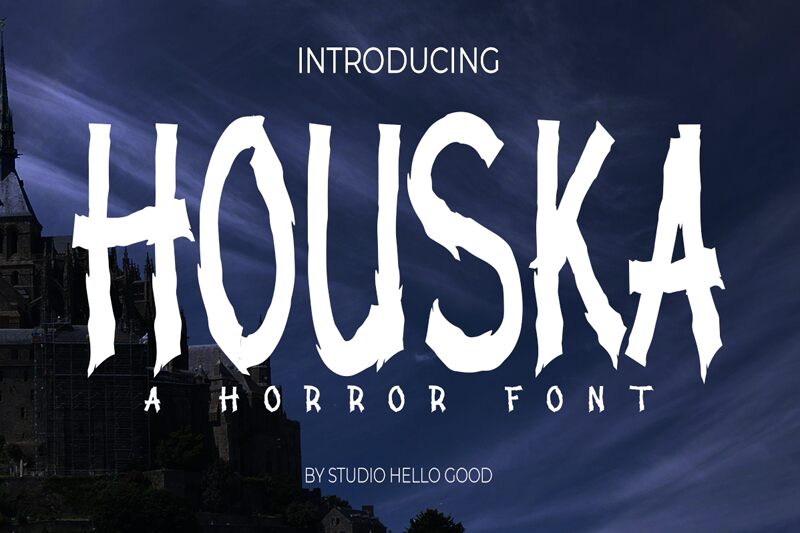
Houska font by Studio Hello Good is a free horror font that packs a dramatic visual punch. The letters of this typeface are jagged, uneven, and eerie. From the first glance, Houska evokes a kind of unsettling vibe that highly fits dark-themed artwork. Use it to aim for a dramatic atmosphere or to strike fear in the hearts of all those who dare to read.
As implied, it is the imperfect nature of the letters that create the best impact. Use it in various sizes to create scary posters, headings, book covers, and more. It is wonderful for movie and series posters of horror shows. Even themed projects, invitations, gaming interfaces, and layouts with related festivals would look great with typography in Houska.